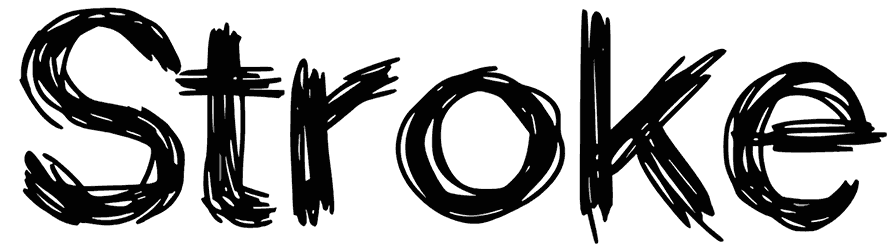
Stroke Font
Stroke is a script font that is designed in trash style, so it can convey a sense of clutter, grunge, disorder, and excitement to the audience, especially the youngsters. This scribble font can be utilized in designing movie posters, children’s books, and prints on clothes to increase their efficiency as well.